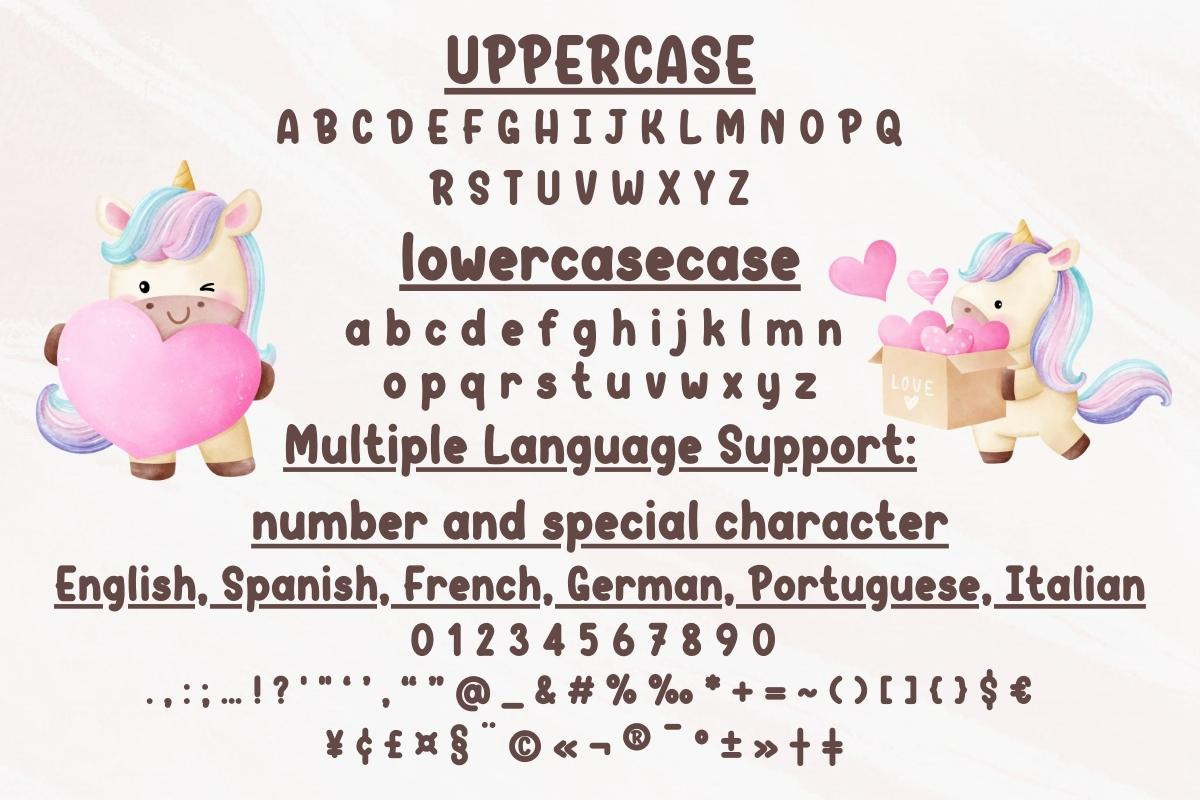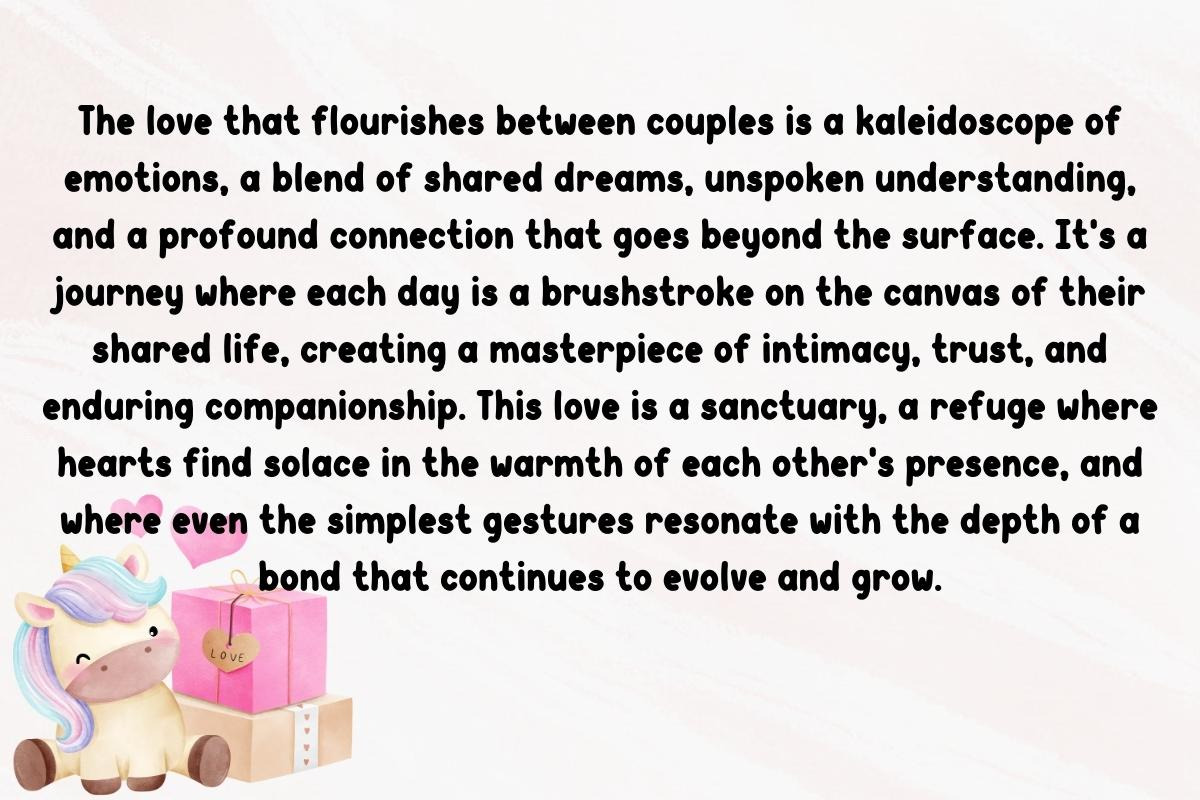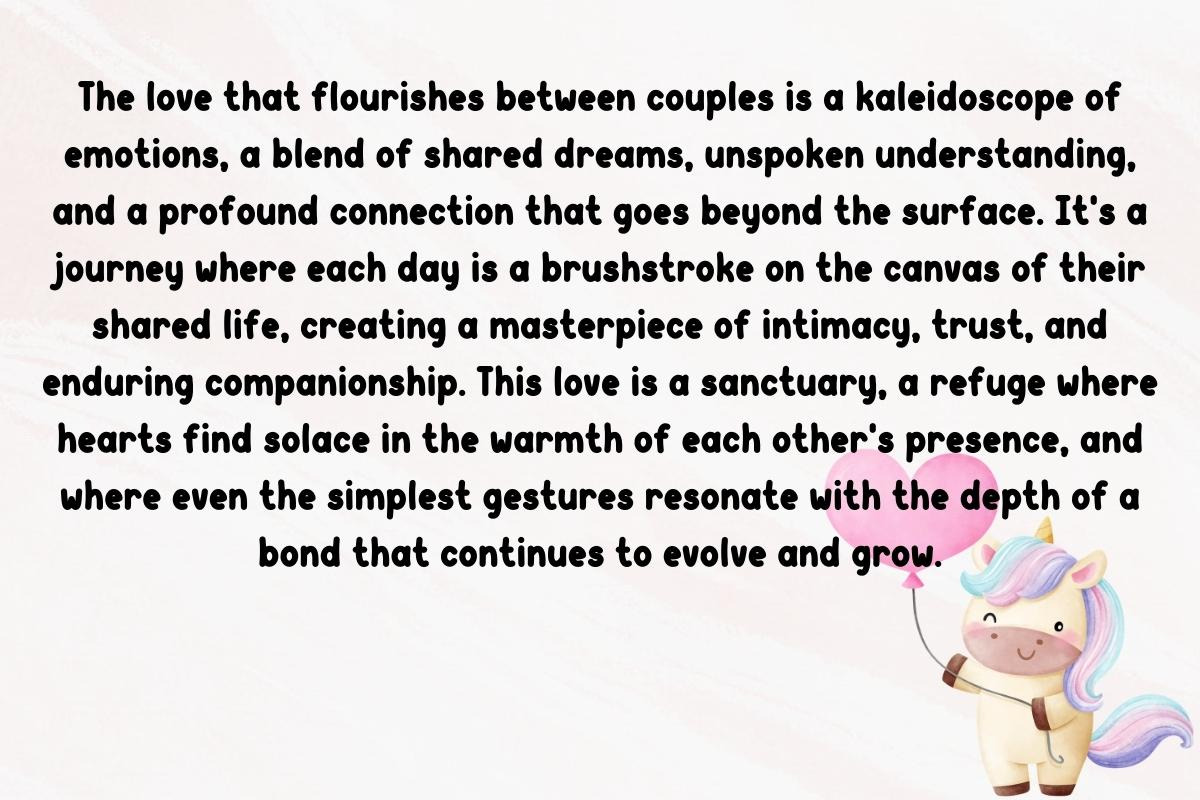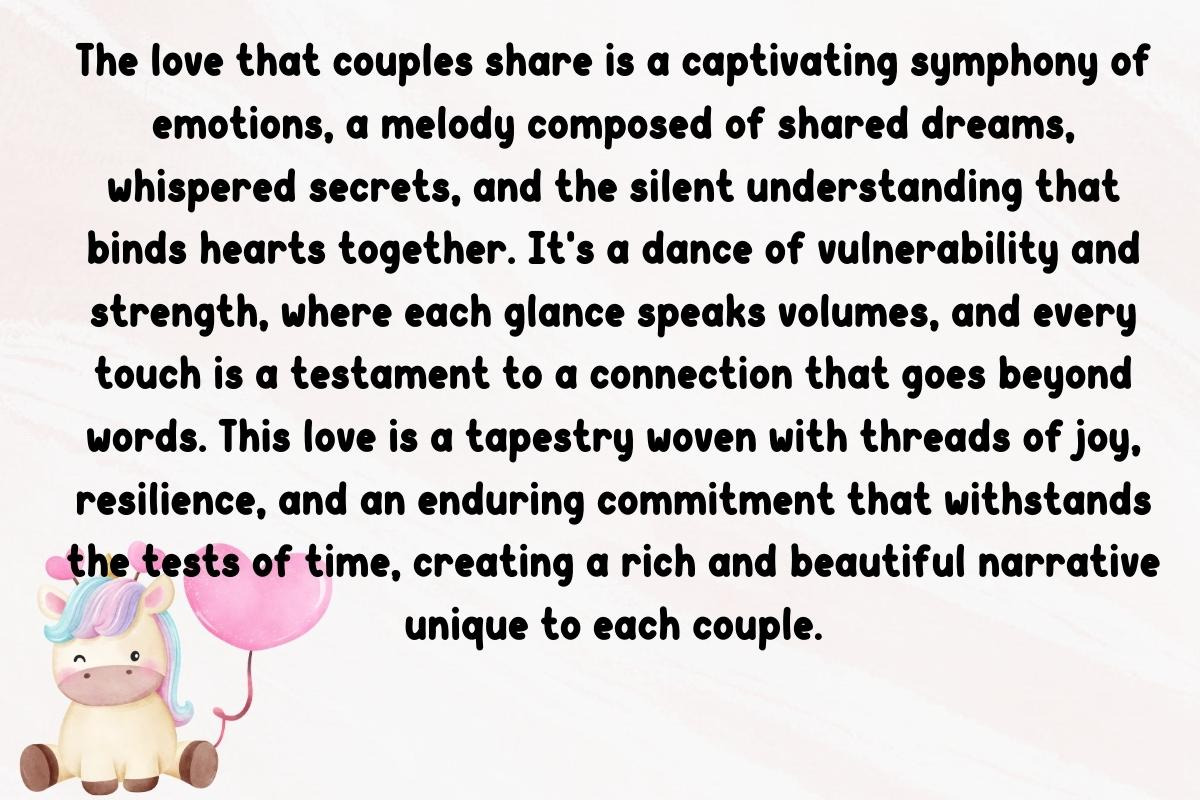
Valentine SweetHeart - Handwritting
Introducing Valentin SweetHeart – a delightful fusion of elegance and charm embodied in a script font that captivates with its whimsical strokes and graceful curves. This display font, crafted with meticulous care, transforms any text into a visual symphony. Valentin SweetHeart, a handwritten font with a unique personality, invites you to infuse your projects with a touch of sweetness and sophistication. Elevate your designs with the timeless appeal of this enchanting typeface, where every letter is a brushstroke of creativity. Embrace the artistry of Valentin SweetHeart for a truly distinctive and heartwarming aesthetic.